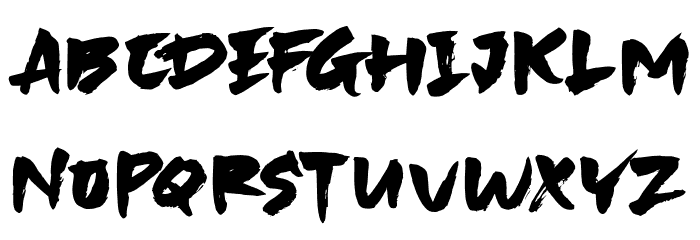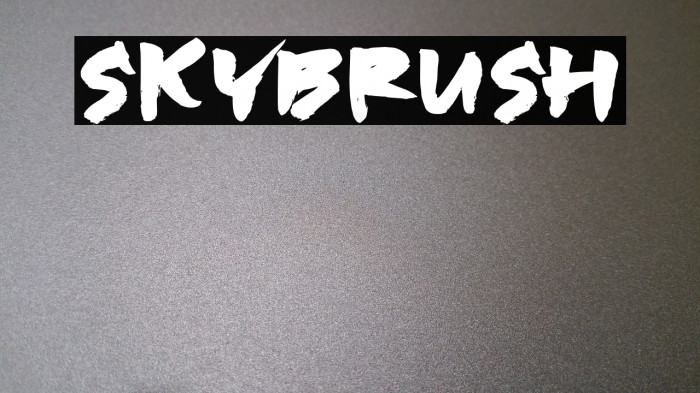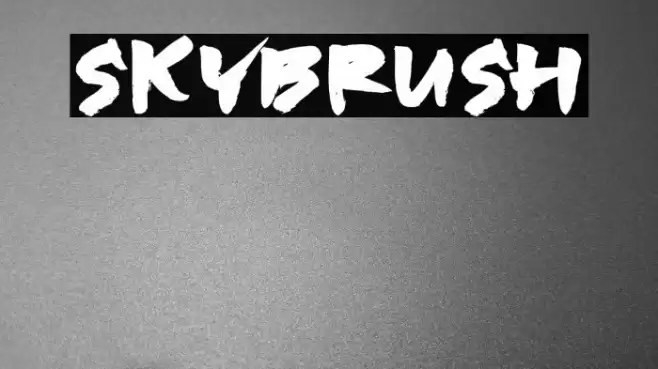
SKYBRUSH Font
This font exudes a bold and dynamic energy, characterized by its brush-like strokes that give it a hand-painted appearance. The uppercase letters are robust and slightly irregular, adding a sense of movement and spontaneity. The lowercase letters maintain the same energetic style, ensuring consistency across text. The numbers and special characters follow suit, with each character appearing as if it were crafted with a swift, confident brushstroke. This font's unique style makes it stand out, providing a sense of creativity and artistic flair.
A bold, brush-style font with dynamic, hand-painted strokes.
- Proposed Projects: Ideal for projects that require a creative and artistic touch, such as posters, logos, and branding materials that aim to convey energy and spontaneity.
- Overall Style: Modern, Artistic